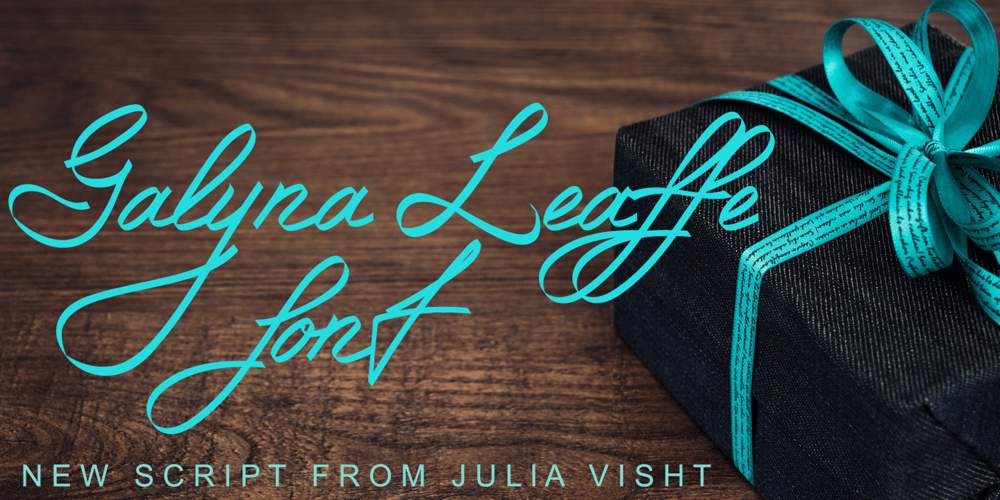
Galyna Leaffe
Galyna Leaffe font
Galyna Leaffe Font Family was designed by Julia Kruk and published by Julia Visht. Galyna Leaffe contains 1 styles and family package options. Galyna Leaffe – new elegant script from Julia Visht! Stylish classic for your successful projects! Harmony of classical elements and modern accents makes the font multifunctional. Classy and a little bit curvaceous Galyna Leaffe is a really must-have for your collection!Main features:-Ligatures. Set of 37 opentype ligatures allows to make your design truly unique.-Multyfunctionality. It’s perfect for: elegant branding, wedding stationery, book cover designs, classy packaging, album covers, handwritten quotes, greeting cards,typographic designs, wall art, websites, photos, and so much more.-Multylangual support. English, German, Italian, French, Danish, Norwegian, Swedish, Italian, Spanish, Filipino, Scottish Gaelic, Indonesian, Irish, Swiss German, Portuguese.Happy creating!